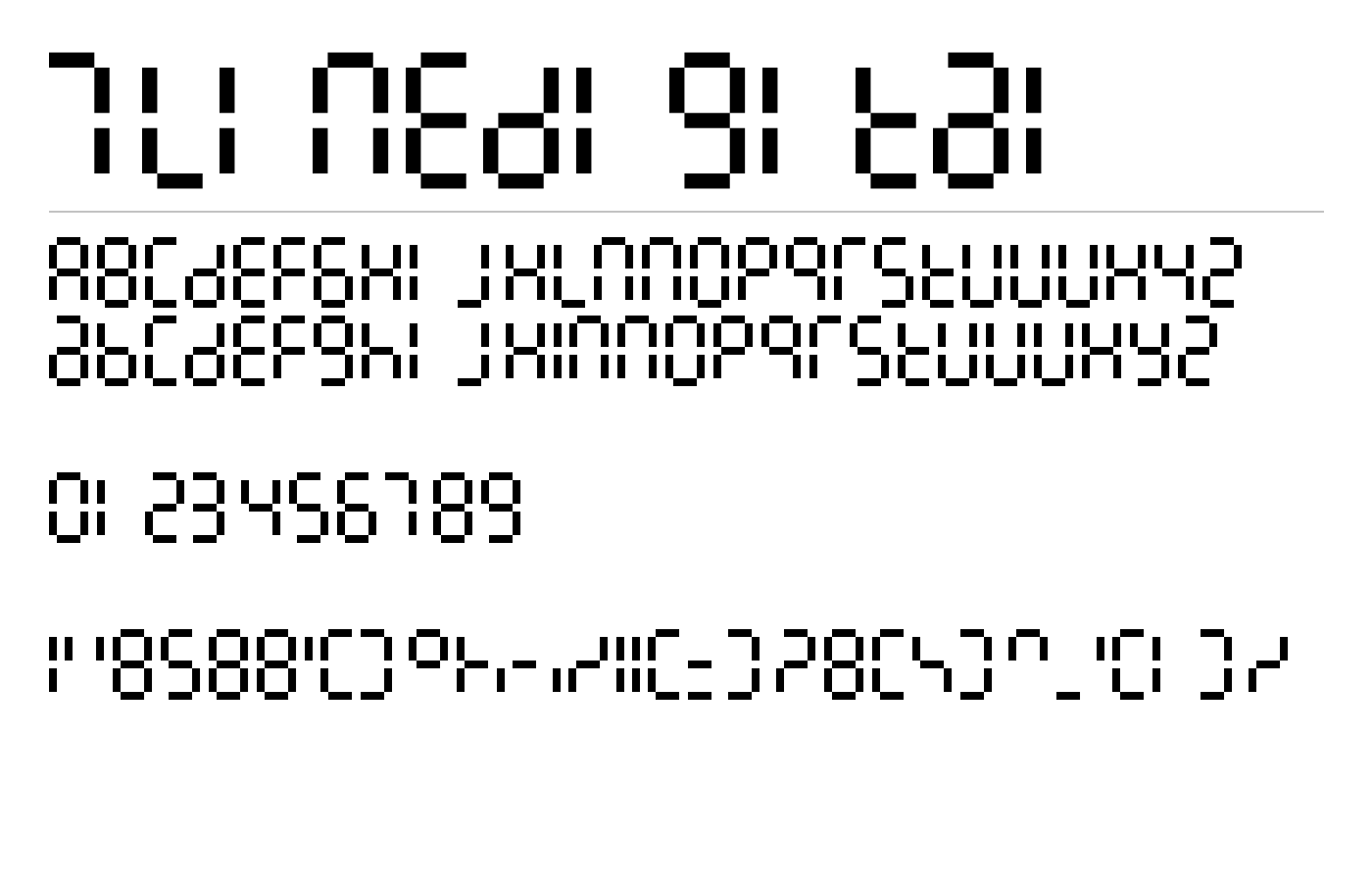
7LineDigital is a distinctive sans serif font with a pixelated, digital aesthetic reminiscent of early computer or video game typography. It features a monospaced look with consistent stroke weight and a compact, grid-based structure, giving it a technical, retro-futuristic vibe ideal for tech, gaming, and digital branding projects. This font works best in headlines, logos, and interfaces where a modern, digital feel is desired.